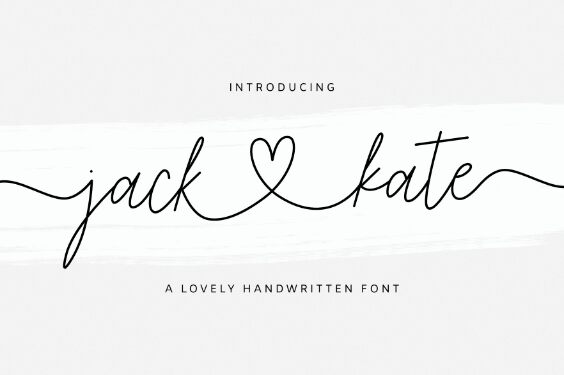
Introducing Jack&Kate, a beautiful handwritten script font designed by Jamaludin JK @Jimtypestudio. Perfect for creating eye-catching logos, invitations, quotes and other creative projects.